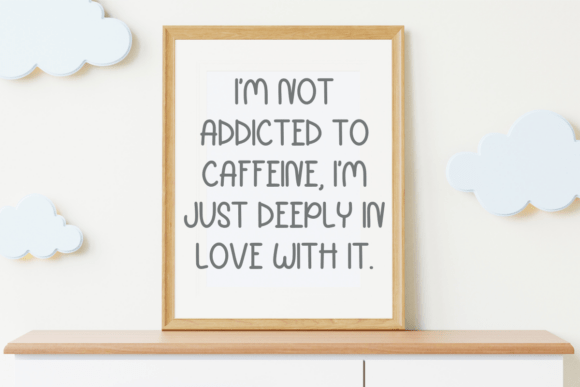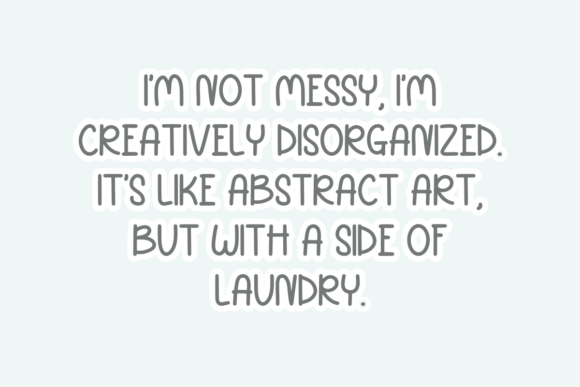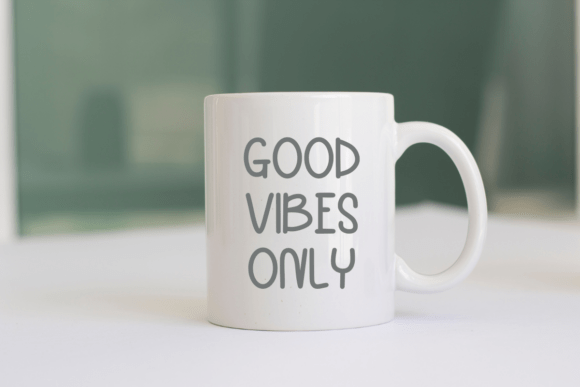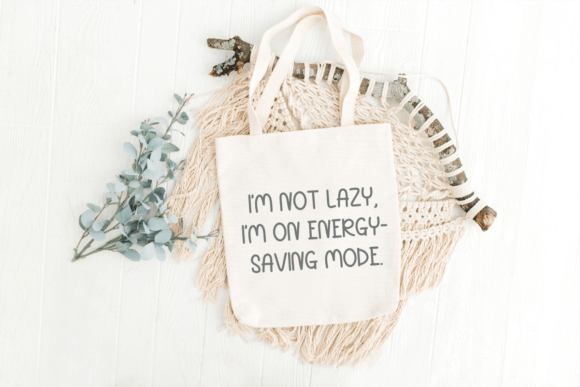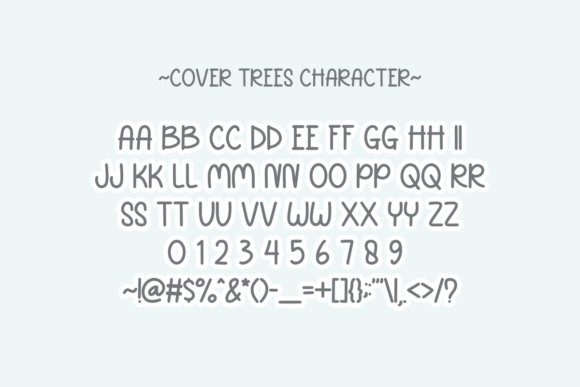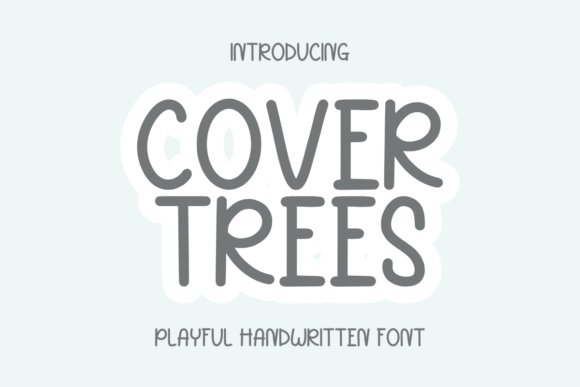
Introducing Cover Trees Font: The Perfect Playful Handwritten Font for Crafters and Designers
Are you a crafter, designer, or maker looking for a font that can add a touch of playfulness and friendliness to your projects? Look no further than Cover Trees Font! This delightful handwritten font is perfect for a wide range of creative endeavors, from crafts and planners to KDP, stickers, greeting cards, and more.
What Makes Cover Trees Font So Special?
Cover Trees Font is a unique and charming font that is sure to capture the hearts of crafters and designers alike. Its cute and friendly style makes it an ideal choice for anyone looking to add a personal touch to their projects. Whether you’re creating custom stickers, greeting cards, or decorations for your planner, Cover Trees Font is the perfect choice.
Perfect for Cricut, Sublimation, and DIY Projects
One of the best things about Cover Trees Font is its versatility. It works great for a wide range of applications, including Cricut, sublimation, and creative DIY projects. Whether you’re a seasoned crafter or just starting out, this font is sure to become a staple in your design toolkit.
Why Crafters and Designers Love Cover Trees Font
So, what is it about Cover Trees Font that makes it so popular among crafters and designers? Here are just a few reasons why this font has become a favorite:
- Playful and Friendly Style: Cover Trees Font has a unique and playful style that is sure to add a touch of personality to any project.
- Easy to Read: Despite its playful style, Cover Trees Font is easy to read, making it perfect for use in planners, journals, and other projects where legibility is important.
- Versatile: Cover Trees Font works great for a wide range of applications, from crafts and planners to KDP, stickers, and greeting cards.
- Perfect for DIY Projects: Whether you’re a seasoned crafter or just starting out, Cover Trees Font is the perfect choice for any DIY project.
How to Use Cover Trees Font in Your Projects
Using Cover Trees Font in your projects is easy! Here are a few tips to get you started:
- Pair it with Other Fonts: Cover Trees Font works great when paired with other fonts, so don’t be afraid to experiment with different combinations.
- Use it for Titles and Headings: Cover Trees Font is perfect for use in titles and headings, where its playful style can really shine.
- Add it to Your Planner or Journal: Cover Trees Font is a great addition to any planner or journal, adding a touch of personality and whimsy to your pages.
In conclusion, Cover Trees Font is a playful handwritten font that is perfect for crafters, designers, and makers. Its cute and friendly style makes it an ideal choice for a wide range of creative endeavors, from crafts and planners to KDP, stickers, greeting cards, and more. With its versatility, ease of use, and playful style, Cover Trees Font is sure to become a staple in your design toolkit.